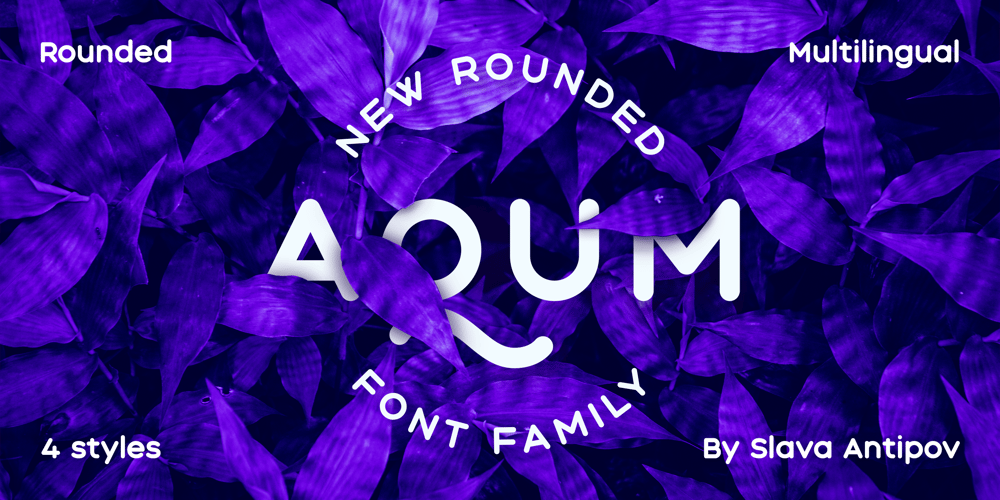
Aqum Two
Aqum Two font
Aqum Two Font Family was designed by Slava Antipov and published by Slava Antipov. Aqum Two contains 4 styles and family package options. Aqum Two is a minimalistic geometric sans serif font family with rounded corners and ends. This shape gives it a friendlier look.This family consists of 4 fonts: Bold with uppercase and lowercase letters, Small caps have tiny uppercase , Curl have 290 alternate glyphs, Classic is a simple font with all caps.